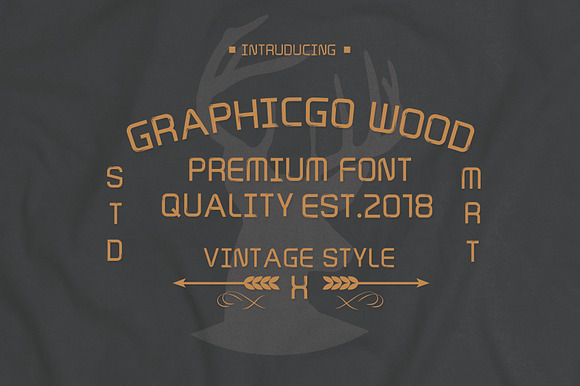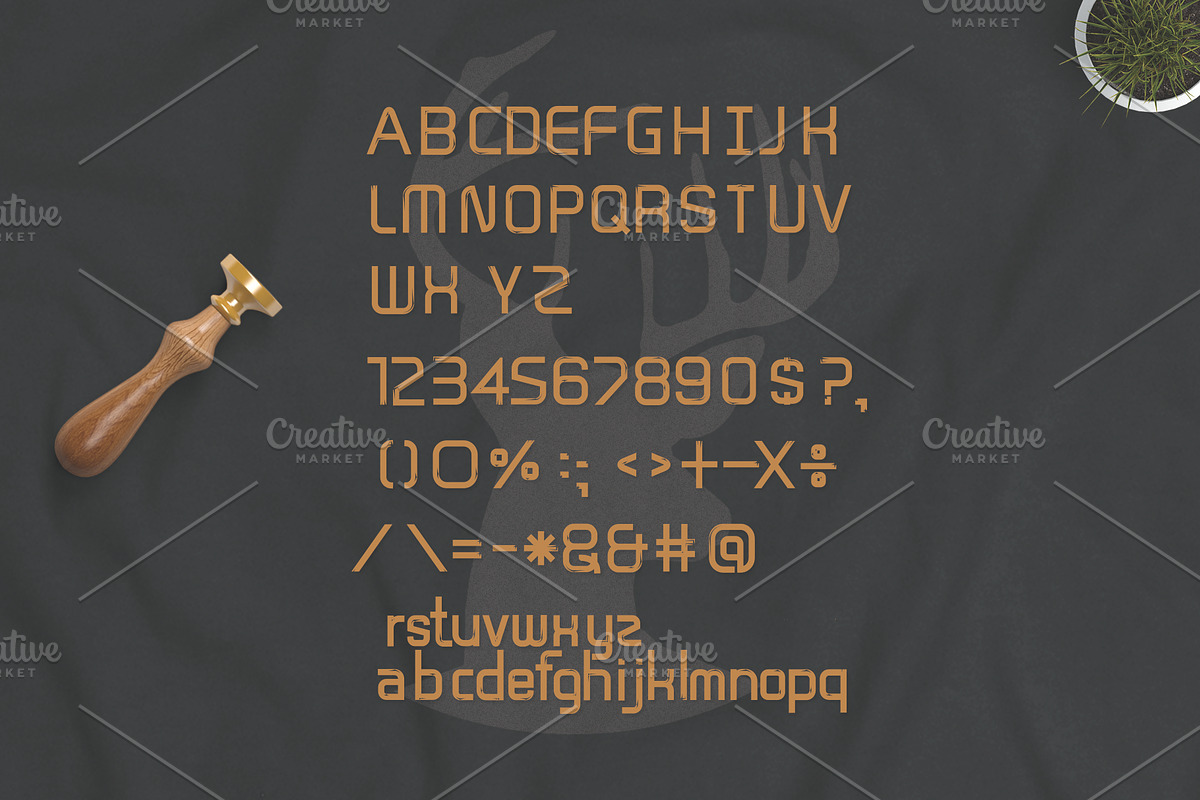
Graphicgo Wood Font
Graphicgo Wood Font is grunge and vintage style. It 's perfect for your lifestyle products, T shirt, posters, wall art, branding, diy projects, greeting cards, labels, quotes, packaging... Font include :
Uppercase and Lowercase
Graphicgo Wood Font by Graphicgo fits naturally into Branding, posters, packaging, typography.